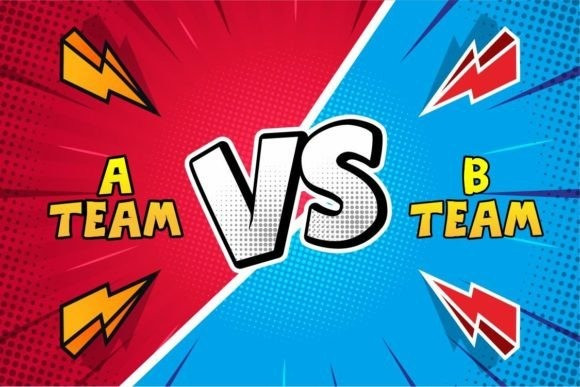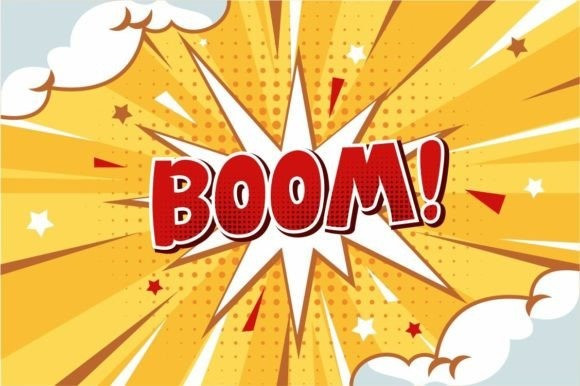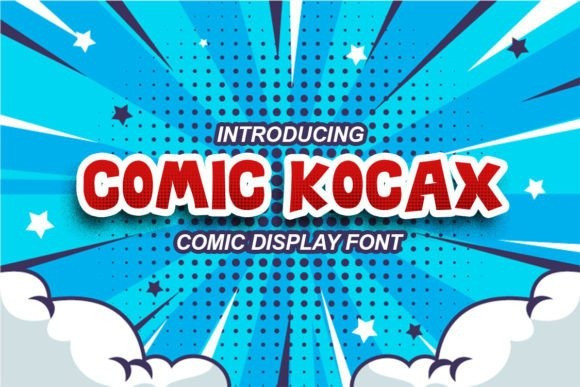
Comic Kocax Font
Comic Kocax Display Font is a funny all-caps display font. It is perfect for picture book cover projects, game apps for kids, posters for parties, and fun events. Also perfect for branding a children’s birthday event.